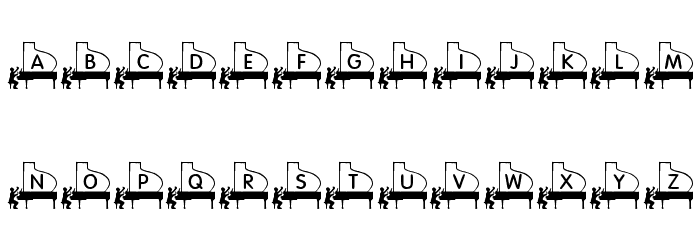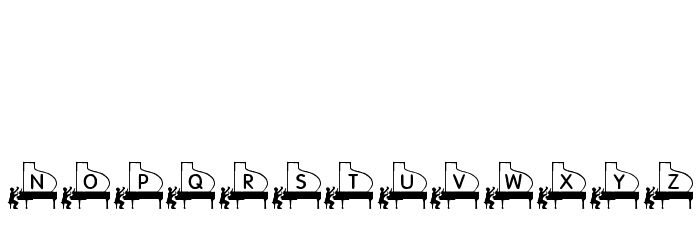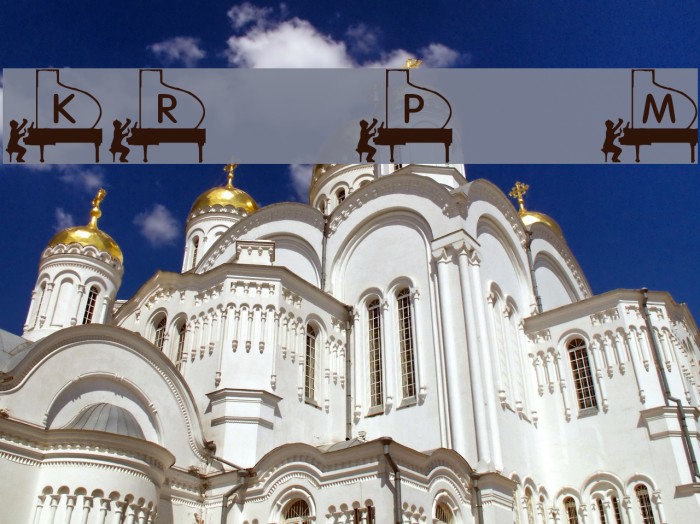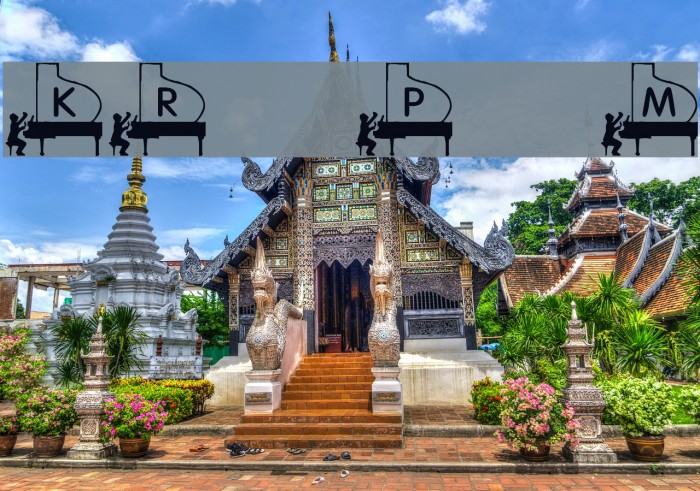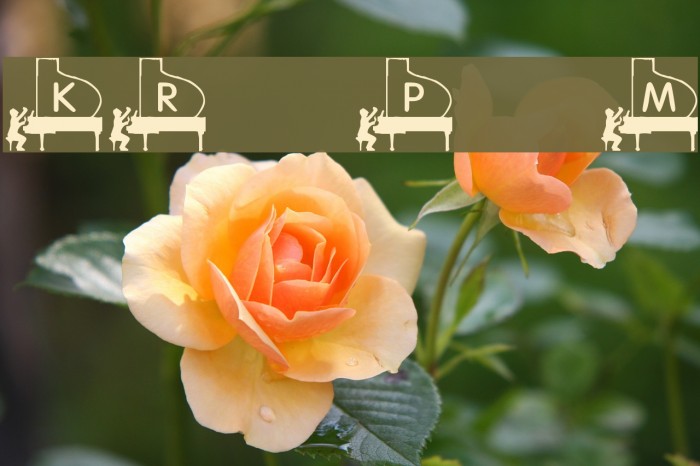
KR Piano Man Font
This decorative font features each letter integrated into a grand piano design, with a silhouette of a pianist playing. The letters are uppercase and are creatively incorporated into the piano's lid, giving a unique and artistic appearance. The font is highly stylized, making it ideal for music-themed projects or events. The design is consistent across all letters, maintaining a uniform look while emphasizing the musical theme. The font does not include lowercase letters, numbers, or special characters, focusing solely on the uppercase alphabet.
A decorative font with letters integrated into a grand piano design.
- Proposed Projects: Ideal for music event posters, concert programs, or any music-related branding.
- Use Case: Logos, Headlines